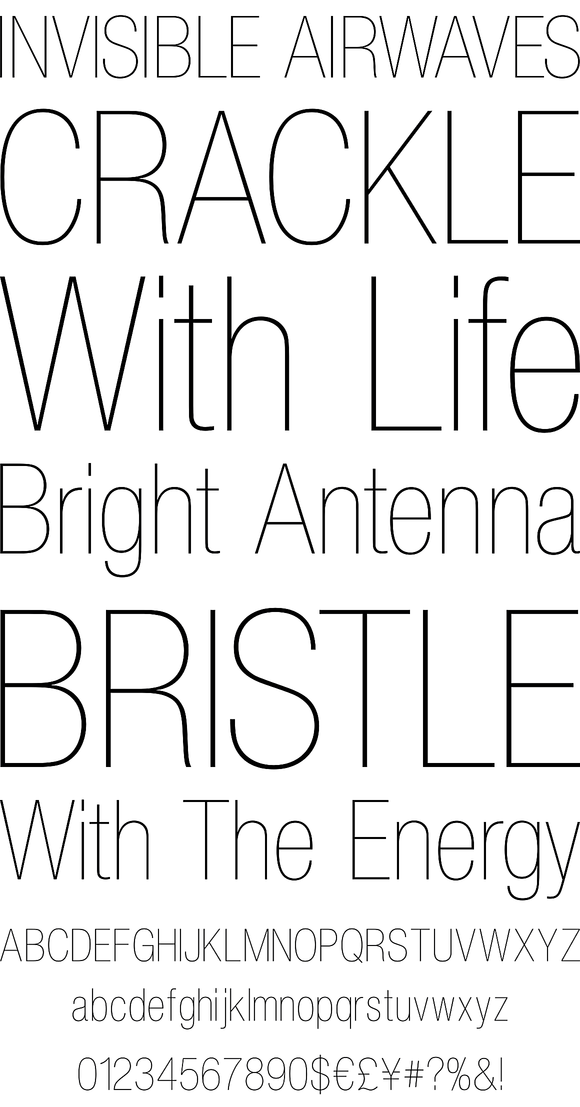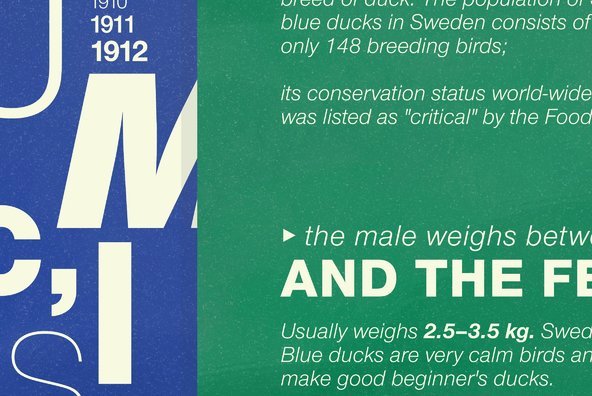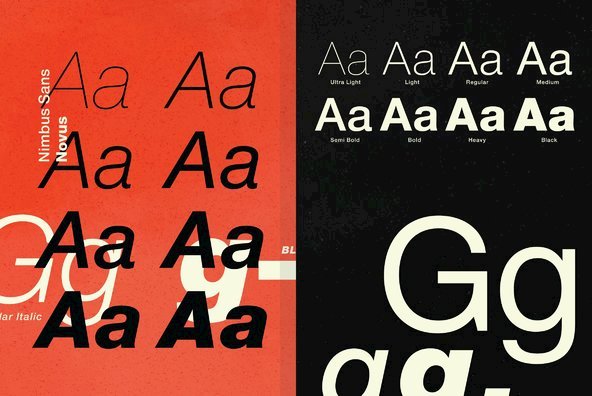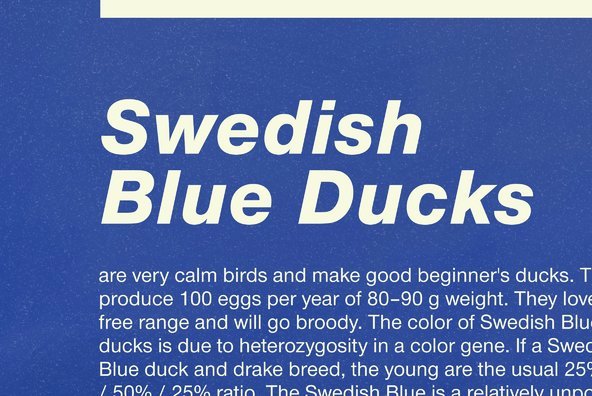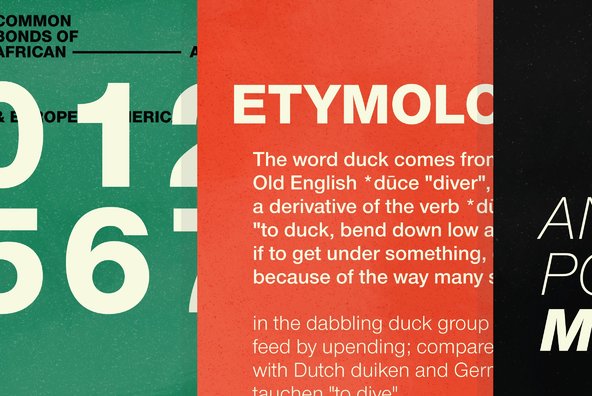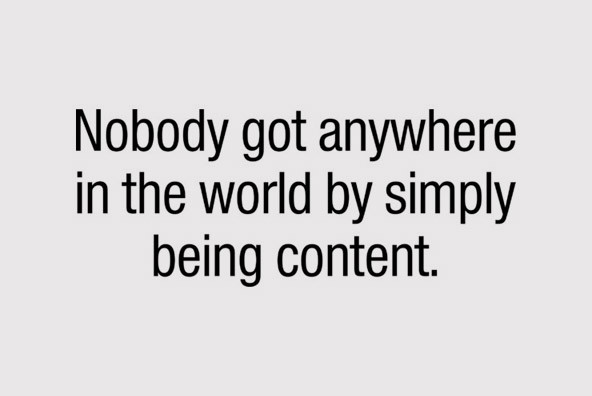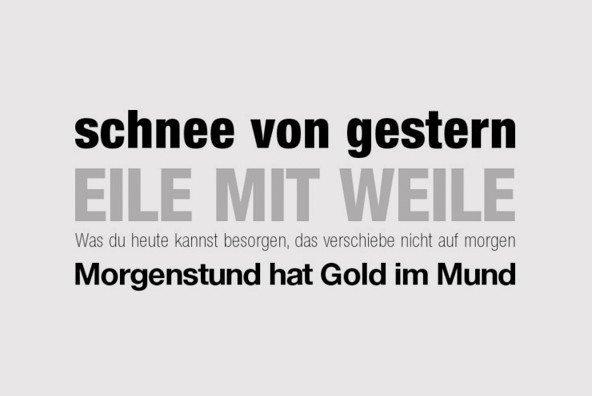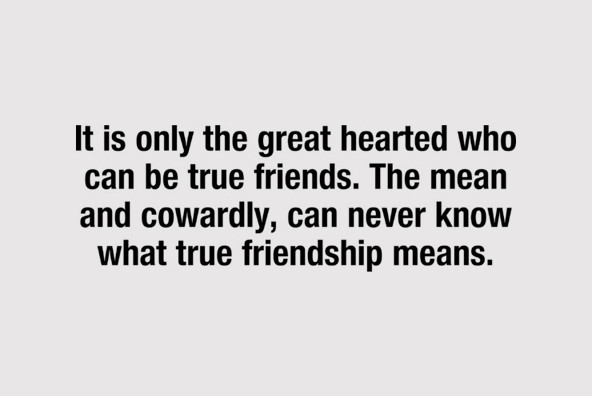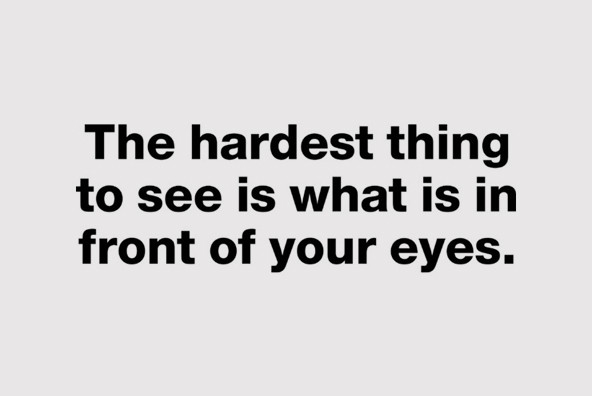
Helvetica. The boss of the 600-lb gorillas. A famous name, known in every corner of the world as the end-all, be-all of sans-serif typefaces. It even has its own feature film. But, what if everything you assumed about Helvetica was wrong?
Helvetica. The boss of the 600-lb gorillas. A famous name, known in every corner of the world as the end-all, be-all of sans-serif typefaces. It even has its own feature film. But, what if everything you assumed about Helvetica was wrong? What if you were to learn that actually, Helvetica was a flawed original, full of errors that were later corrected, perfected and re-named? What if you could get this perfection for a far cheaper price than its more famous ancestor, without paying the exorbitant prices that the simple name can bring?
URW Nimbus Sans is that reality.
Taken from Max Miedinger's same original drawings, URW's Nimbus Sans was digitized in the early 80s from ultra-high quality analog artwork, utilizing the best technical process in the world. Make no mistake, URW Nimbus Sans is simply the best in the market, and should be viewed and used as a REPLACEMENT FOR Helvetica--it's the same original drawing made superior in every way.
In this same mold, there is also a perfected replacement for Helvetica's younger cousin, Neue Helvetica--Nimbus Sans Novus. The character shapes are identical, with perfected spacing and kerning. This, again is a perfected version, from the highest-quality artwork.
Nimbus Sans is available in literally any character set (Latin, Cyrillic, Greek, Arabic, Hebrew, CJK, Thai etc.) and Nimbus Sans Novus is available in many scripts besides Latin: Cyrillic, Greek, Arabic, Hebrew, etc.